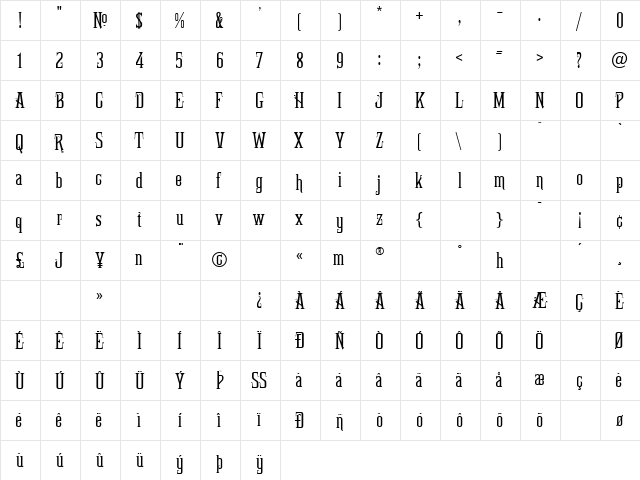
Marta Decor Regular
Design Context for Marta Decor Typeface
Marta Decor takes a measured approach to typography — its balanced proportions and neutral character make it a reliable workhorse for both digital and print work.